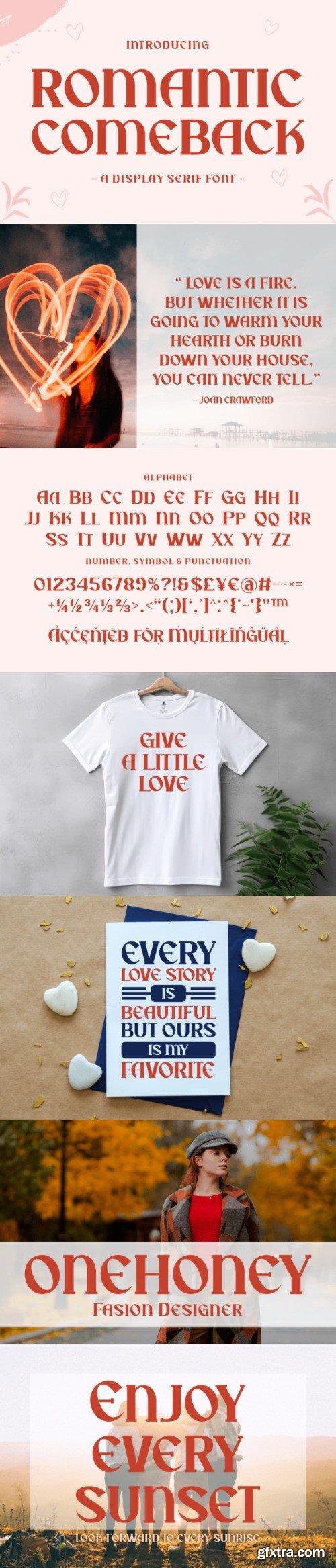
浪漫復出字体
Romantic Comeback is a bold and assertive display serif font. No matter the topic, this font will be an incredible asset to your fonts’ library, as it has the potential to elevate any creation.